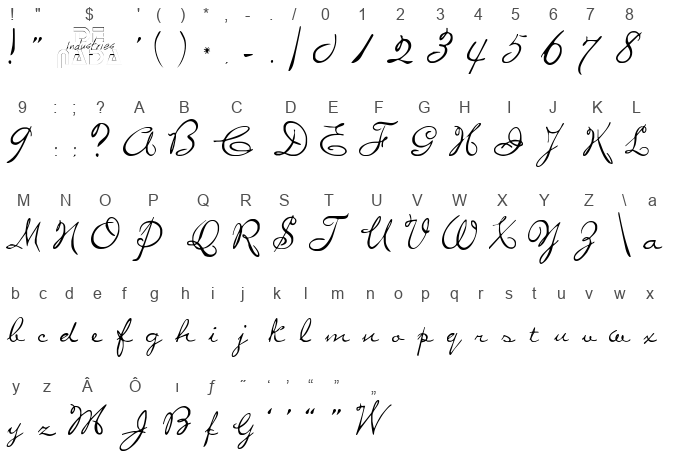
Imagine stumbling into a whimsical, quirky little coffee shop in the heart of an artsy neighborhood, where every nook and cranny is packed with charm and character. That’s the essence of Miss, a font crafted with loving care by the imaginative folks at De Nada Industries. Picture this: each letter of Miss seems to dance whimsically on the page, as if it were lightly stepping to its own unique rhythm, perhaps a jaunty tune played on a vintage record player. This font isn't just a collection of characters; it's a gathering of eccentric personalities, each letter waving at you like an old friend.
Miss is the typeface you'd expect to find on the dusty cover of a secret diary, hidden away in an old attic, filled with tales of adventures and long-lost love. It exudes a nostalgia that’s both heartwarming and slightly bittersweet. The curves of each letter are soft and inviting, akin to being wrapped in a warm, knitted blanket on a chilly autumn evening. Yet, there’s a cheekiness to it, as if each dot on an 'i' and each cross on a 't' were winkingly aware of its own charm.
What sets Miss apart isn't just its visual appeal but the emotional response it evokes. It’s like a conversation with an old friend - familiar, yet always full of surprises. There’s a handmade quality to it that makes you want to reach out and touch the words, as if they were carefully inked by a calligrapher who pauses to smile at each stroke. In a world that often feels overwhelmingly digital and detached, Miss is a breath of fresh air, a reminder of the beauty of imperfection and the human touch.
In truth, Miss by De Nada Industries isn’t just a typeface; it’s a whimsical journey into a world where charm and character are paramount, where every letter tells a story, and where the joy of reading is rekindled in every whimsically dancing character. It’s the perfect choice for projects that require a touch of warmth, personality, and nostalgia, all wrapped up in a delightful visual package.
Miss